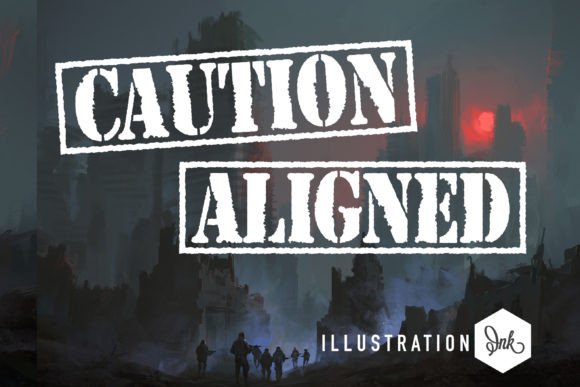
Welcome to the world of Caution Aligned Font - a perfect blend of style and elegance! This remarkable serif font is perfect for those who are looking for a boxed-up stencil font that is unique and captivating. Created by the talented team at Illustration Ink, this font is the perfect addition to any creative project that requires a touch of sophistication.
What sets Caution Aligned Font apart from the rest is its textured line that can be finished off using rectangle brackets and underscore. This feature gives the font a distinctive look that is sure to capture the attention of your audience. Whether you are designing a poster, creating a logo, or writing a blog post, this font will take your work to the next level.
With Caution Aligned Font, the possibilities are endless. You can use it for anything from invitations and business cards to book covers and packaging. The font's versatility makes it perfect for any occasion, whether you are creating something fun and playful or something more formal and professional.
But what really makes Caution Aligned Font stand out is the emotional response it evokes. The font's sleek and sophisticated design is sure to impress, and its unique features make it impossible to ignore. It is the perfect font for anyone who wants to make a statement and leave a lasting impression.
In conclusion, if you are looking for a font that is both elegant and captivating, Caution Aligned Font is the perfect choice. With its textured line and versatile style, this font is sure to take your creative projects to the next level. So why wait? Add Caution Aligned Font to your collection today and be astounded by the incredible outcomes!